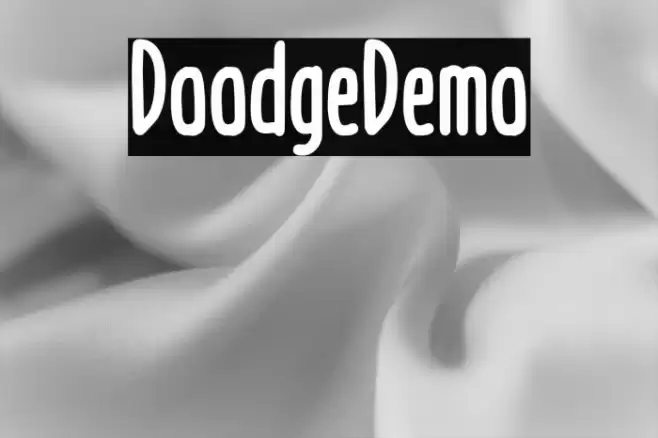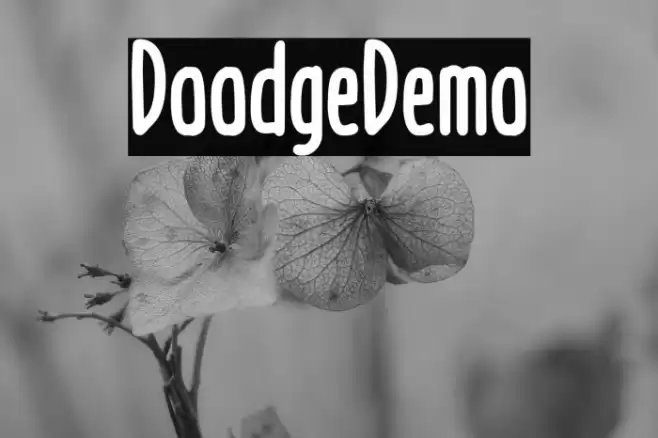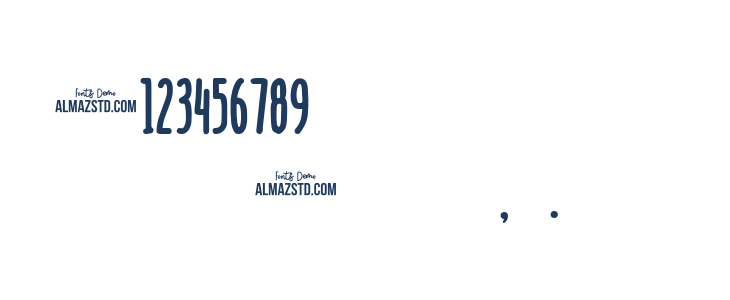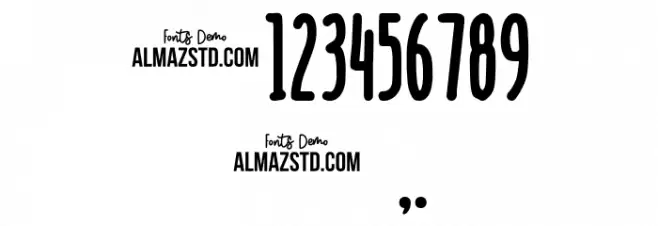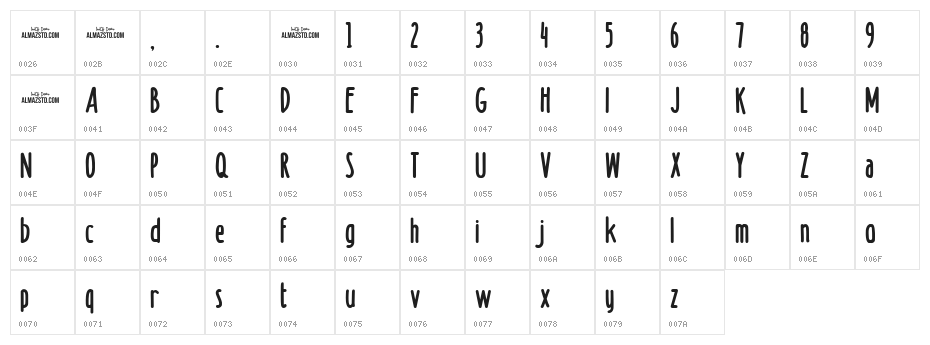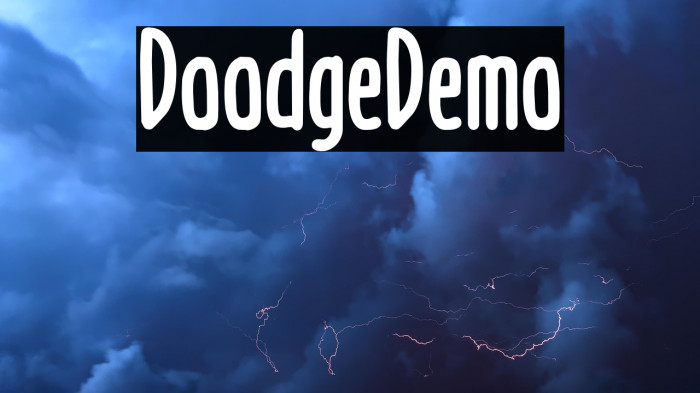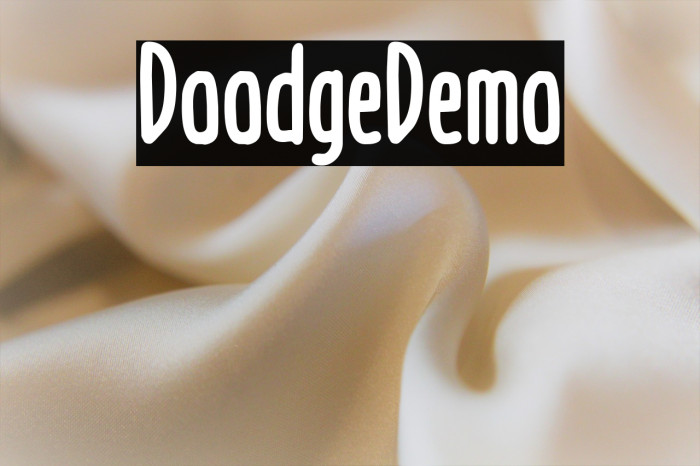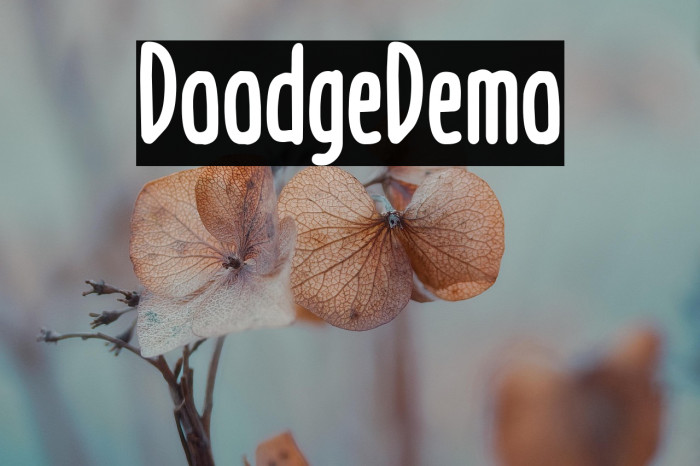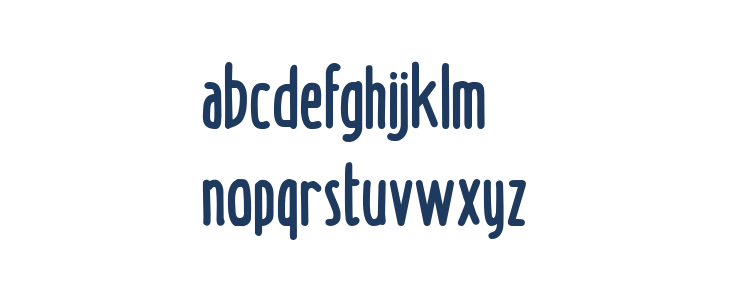
Doodge_Demo Font
Doodge_Demo Description
This font features a playful and rounded style with a handwritten feel. The characters are bold and slightly condensed, giving a friendly and approachable appearance. The uppercase letters are tall and narrow, while the lowercase letters maintain a consistent height, creating a harmonious balance. The numbers are clear and easy to read, matching the overall style of the alphabet. The special characters are designed to blend seamlessly with the rest of the font, maintaining the same playful and informal aesthetic. This font is perfect for projects that require a touch of whimsy and creativity.
A playful, rounded font with a handwritten feel, perfect for creative projects from Regular fonts.
- Proposed Projects: Ideal for children's books, greeting cards, playful branding, and creative posters.
- Overall Style: Playful